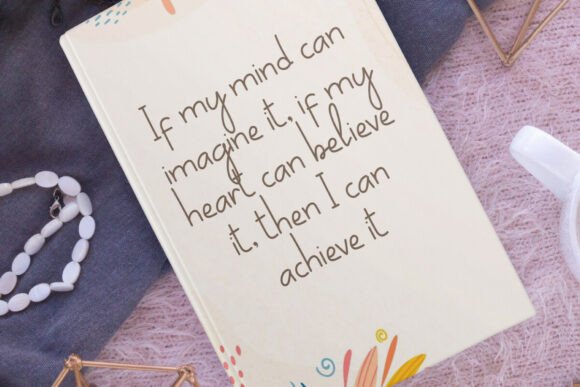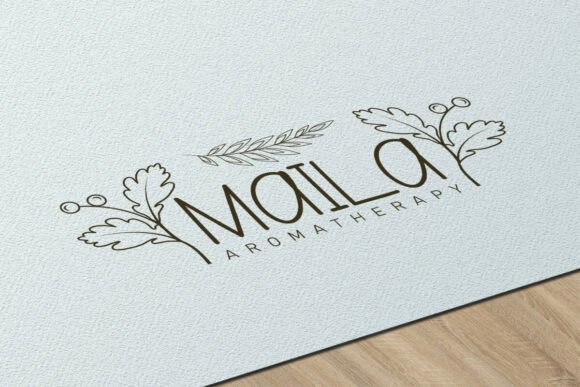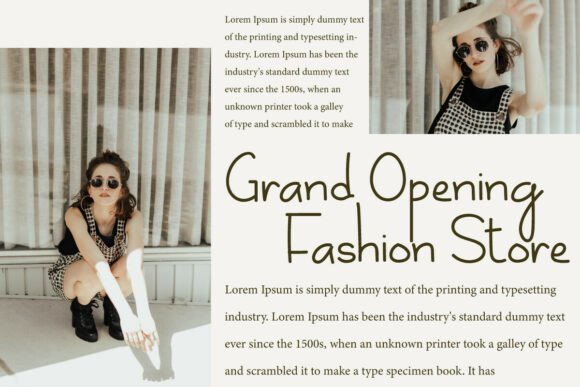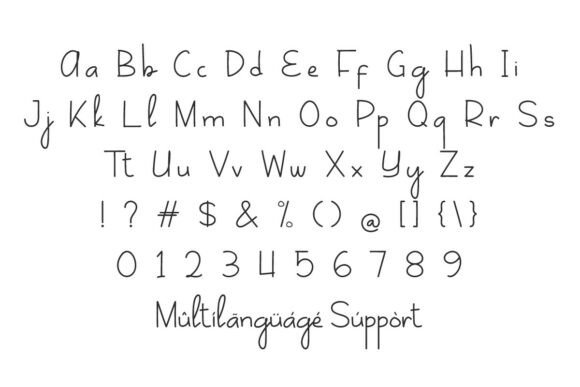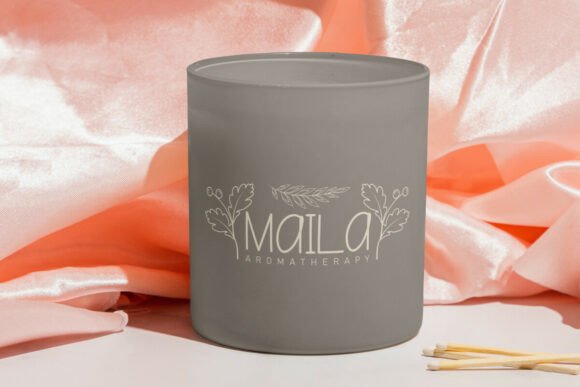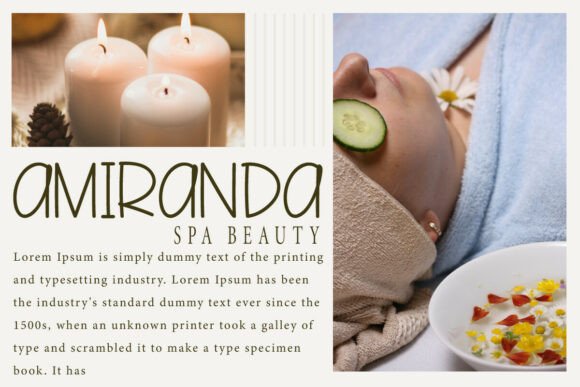
Capture Effortless Charm with the Going Today Font
In the world of typography, few fonts manage to convey the essence of effortless charm as beautifully as the Going Today font. This delicate and airy handwritten script feels like a personal note from a friend, bringing an authentic, human touch to any design. With its thin, monoline strokes and organic flow, the Going Today typeface is particularly well-suited for lifestyle branding, travel blogs, and “slow living” aesthetics.
The Characteristics of Going Today Font
The Going Today font boasts a unique set of characteristics that make it stand out from other typefaces. Its thin, monoline strokes give it a delicate and airy feel, while its organic flow makes it feel like a handwritten script. The font is also PUA-encoded, allowing effortless access to all glyphs, swashes, and alternate characters. This makes it easy to use and customize, even for designers who are new to typography.
Perfect for Lifestyle Branding and Travel Blogs
The Going Today font is particularly well-suited for lifestyle branding and travel blogs. Its effortless charm and organic flow make it perfect for designs that require a personal touch. Whether you’re designing a logo, brochure, or social media post, the Going Today font is sure to bring a sense of warmth and intimacy to your design. For travel blogs, the font’s airy feel and delicate strokes evoke a sense of adventure and freedom, making it perfect for capturing the essence of travel.
Slow Living Aesthetics
The Going Today font is also well-suited for “slow living” aesthetics. This design movement emphasizes the importance of slowing down and appreciating the simple things in life. The font’s delicate strokes and organic flow make it perfect for designs that require a sense of calm and serenity. Whether you’re designing a website, social media post, or print material, the Going Today font is sure to bring a sense of peace and tranquility to your design.
Design Tips and Tricks
To maximize the impact of the Going Today font, here are a few design tips and tricks to keep in mind:
- Pair the Going Today typeface with a wide-spaced serif for a high-end boutique look. This combination is perfect for designs that require a sense of luxury and sophistication.
- Use the Going Today font alone against a dark background for a poetic, moody atmosphere. This combination is perfect for designs that require a sense of drama and intrigue.
- Take advantage of the subtle heart accents included in the font set. These accents make the Going Today font a lovely choice for wedding stationery and personalized gifts.
Perfect for Wedding Stationery and Personalized Gifts
The Going Today font is a lovely choice for wedding stationery and personalized gifts. The subtle heart accents included in the font set add a touch of romance and whimsy, making it perfect for designs that require a sense of love and affection. Whether you’re designing a wedding invitation, save-the-date card, or personalized gift, the Going Today font is sure to bring a sense of warmth and intimacy to your design.
In conclusion, the Going Today font is a beautiful and versatile typeface that is perfect for designers and crafters who want to add a touch of effortless charm to their designs. With its thin, monoline strokes and organic flow, the Going Today font brings an authentic, human touch to any design. Whether you’re designing a logo, brochure, or social media post, the Going Today font is sure to bring a sense of warmth and intimacy to your design.
Get Creative with Going Today Font
So why wait? Get creative with the Going Today font today and bring a touch of effortless charm to your designs. With its PUA-encoded glyphs, swashes, and alternate characters, the Going Today font is easy to use and customize. Whether you’re a seasoned designer or a crafty DIY enthusiast, the Going Today font is sure to inspire your next creative project.